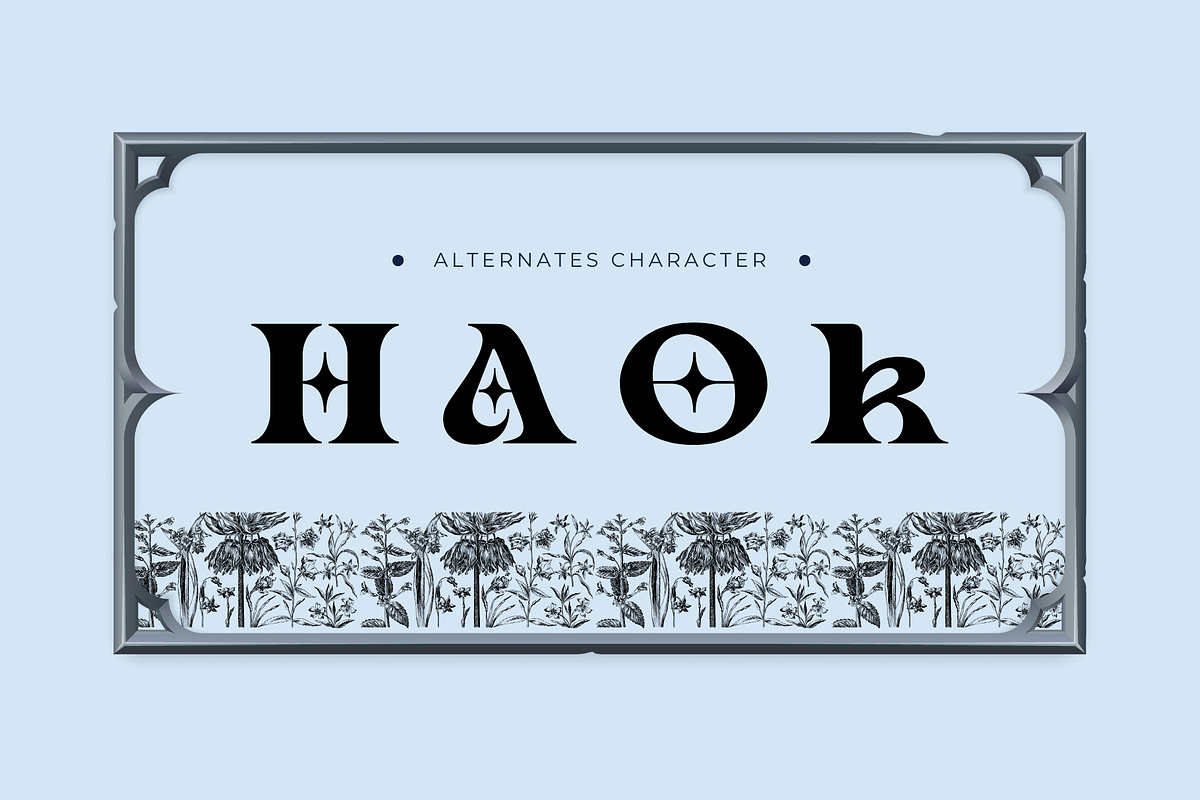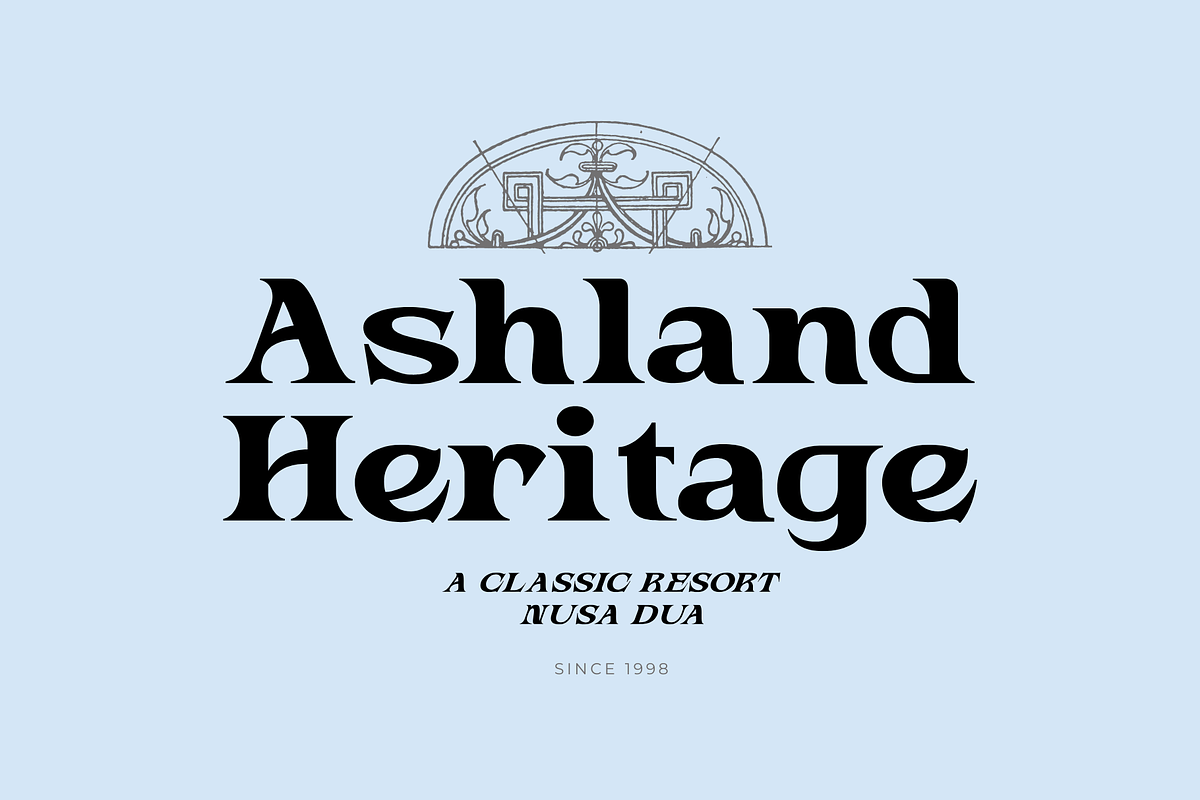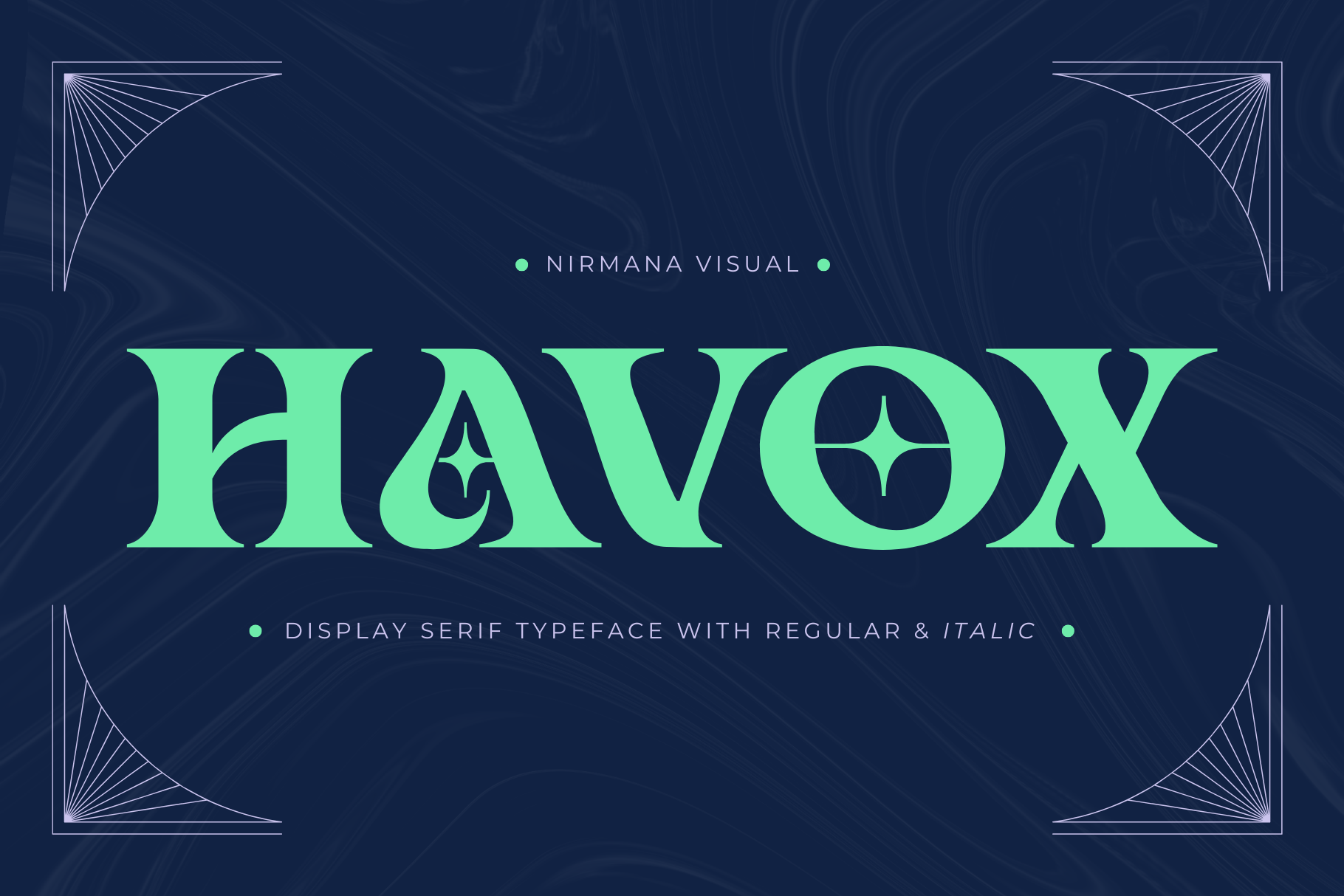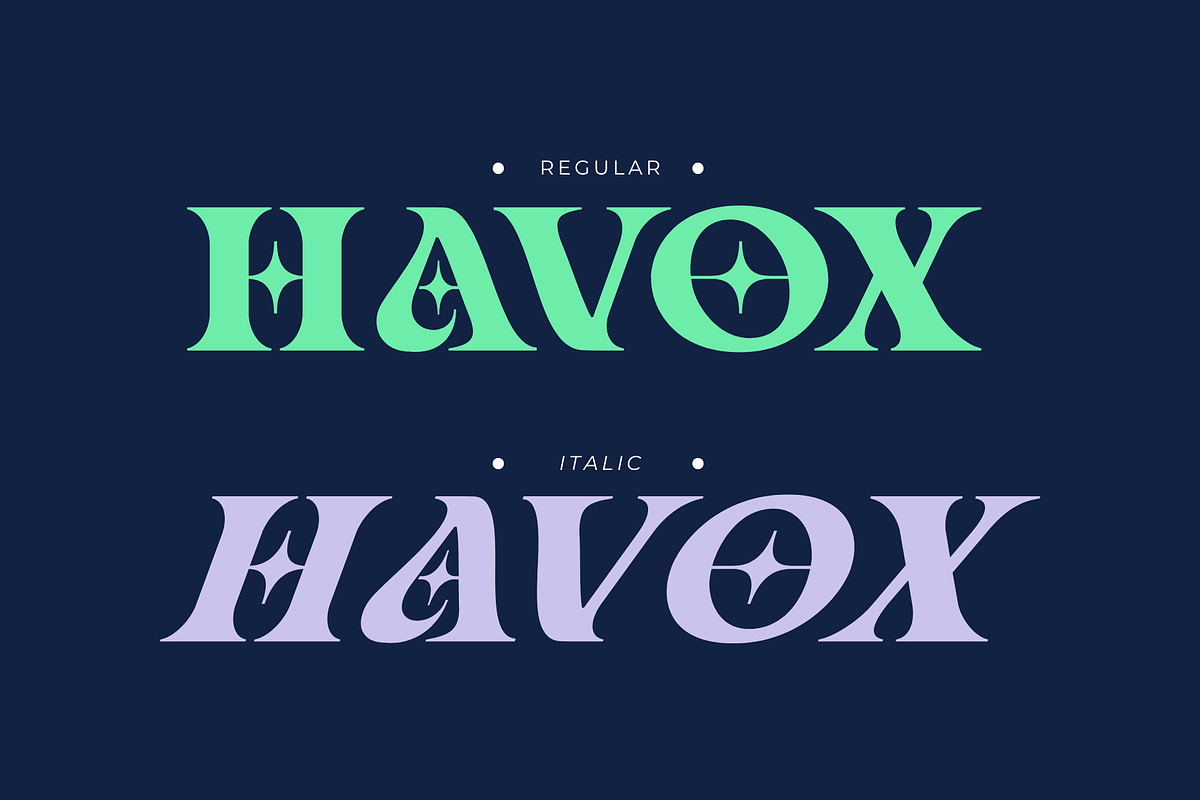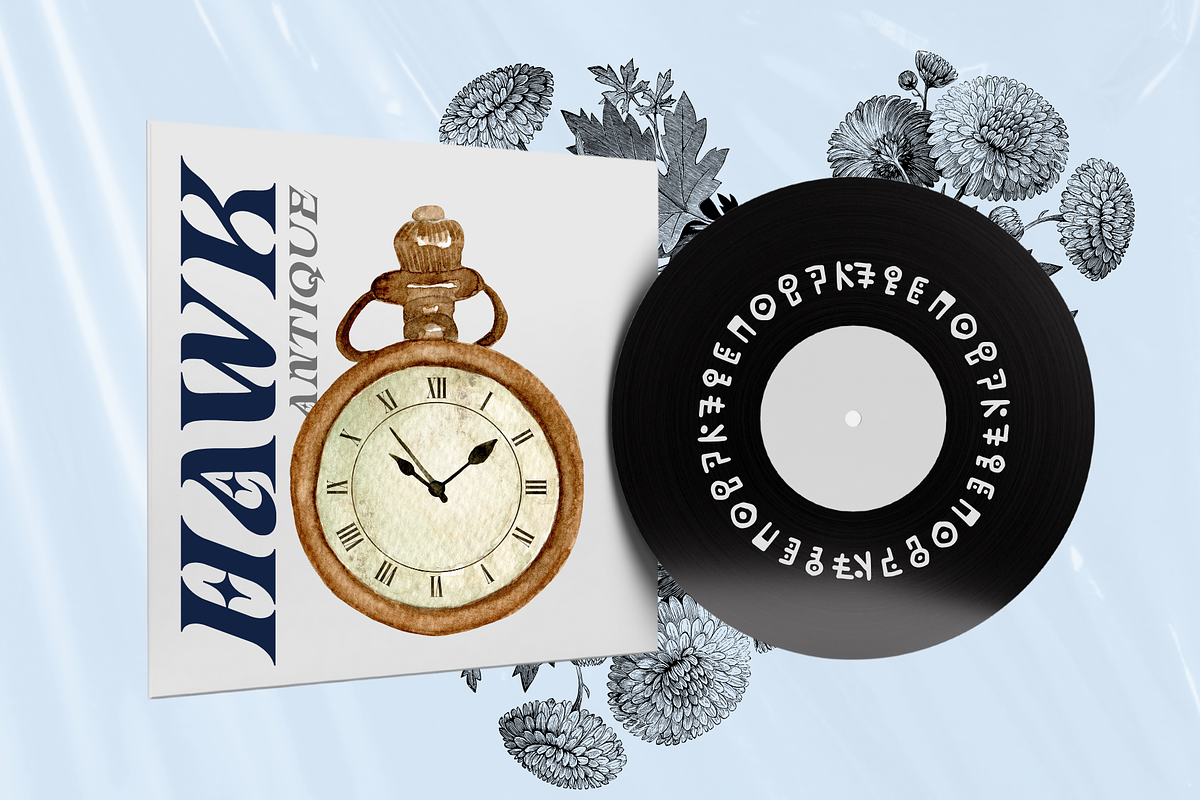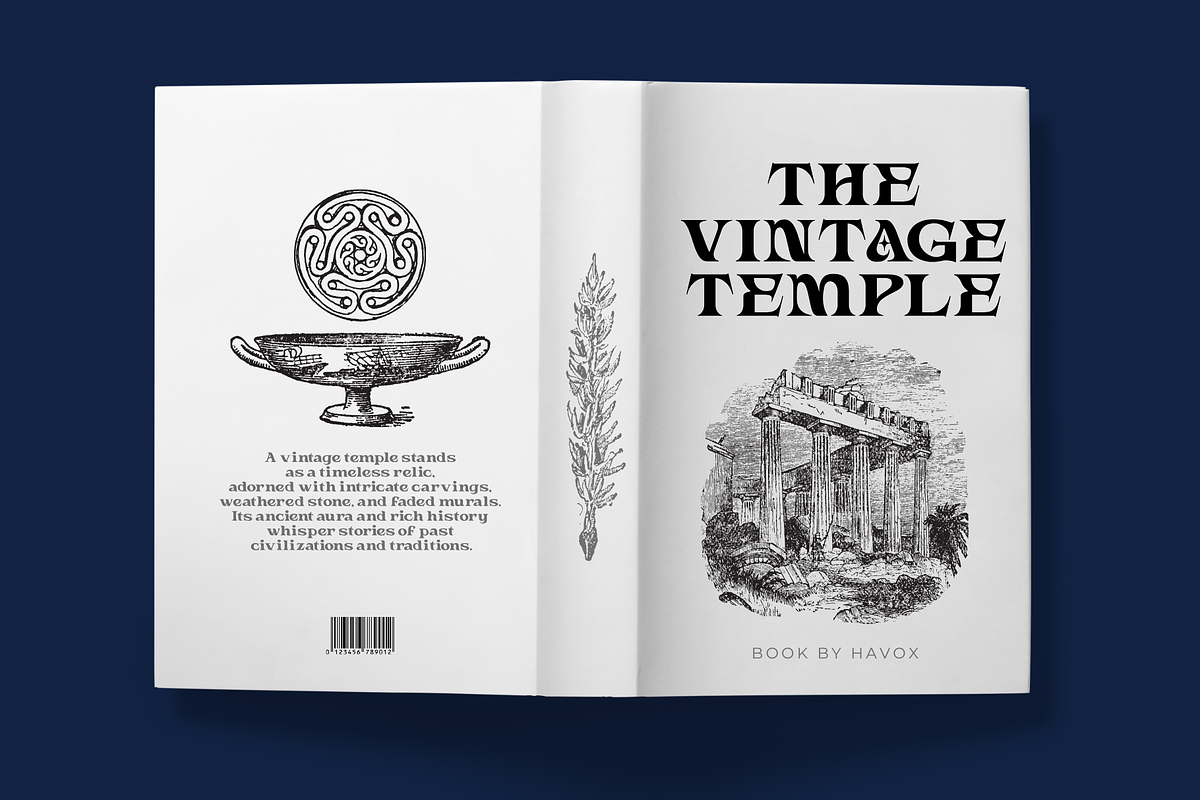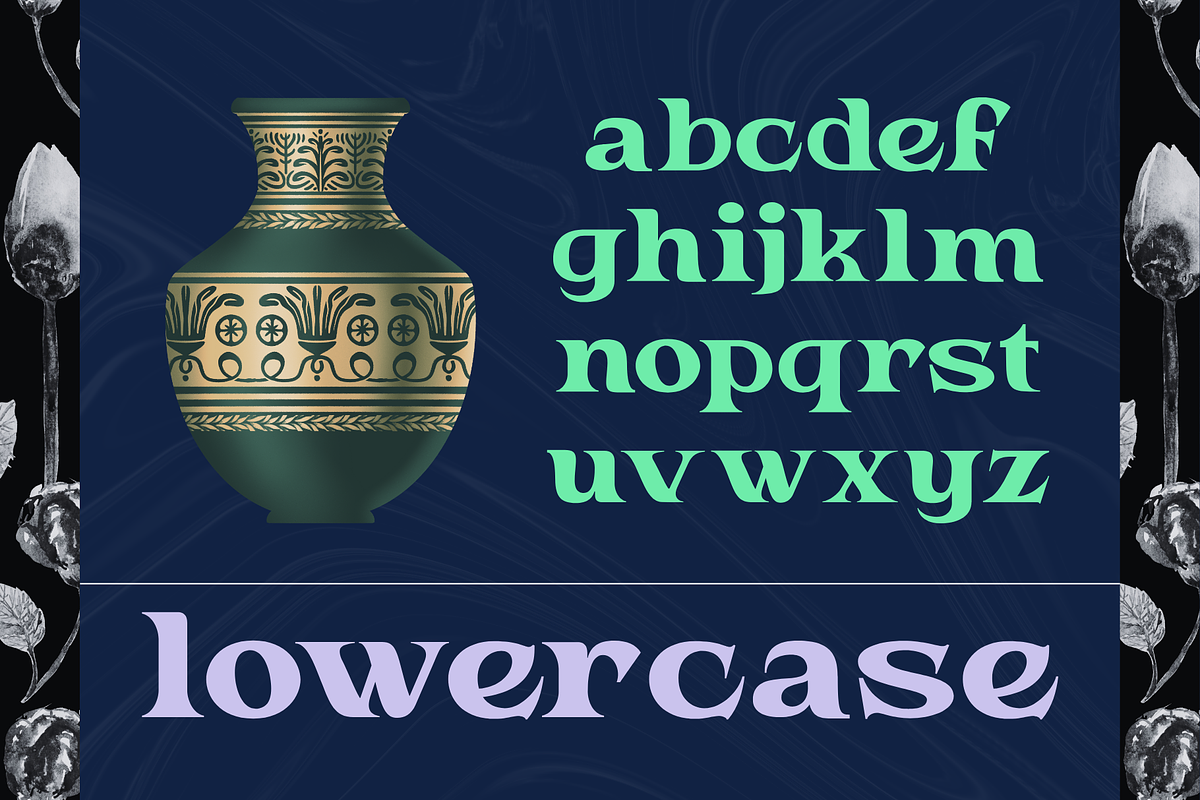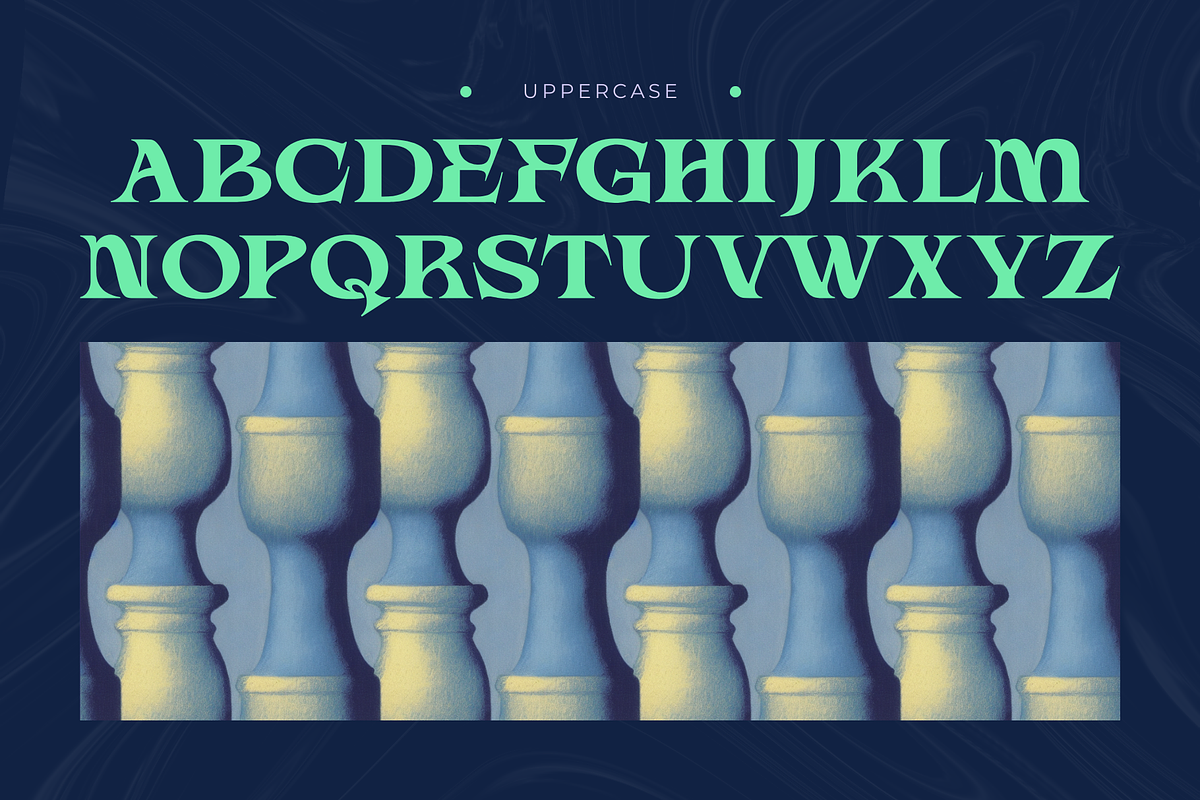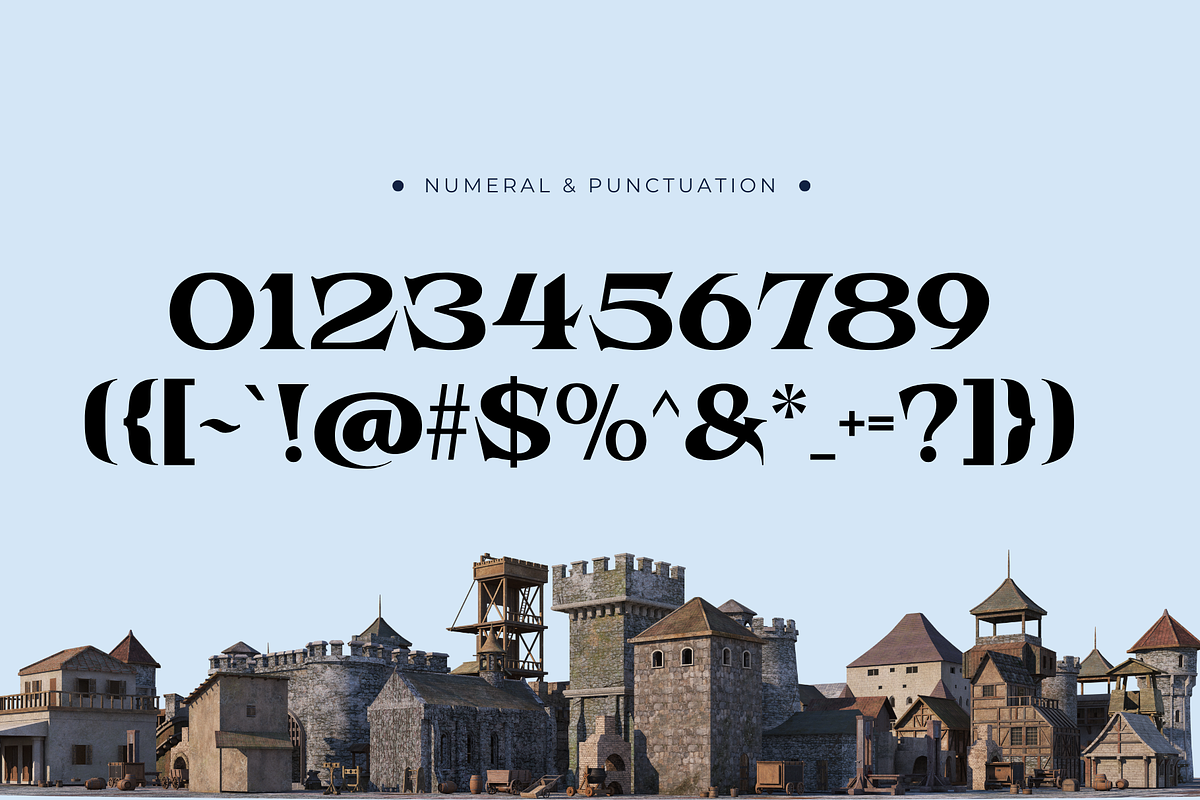
Havox Vintage - Branding Logo Font
Havox Vintage offers beautiful typographic harmony for a diversity of design projects, including logos & branding, social media posts, advertisements & product designs.